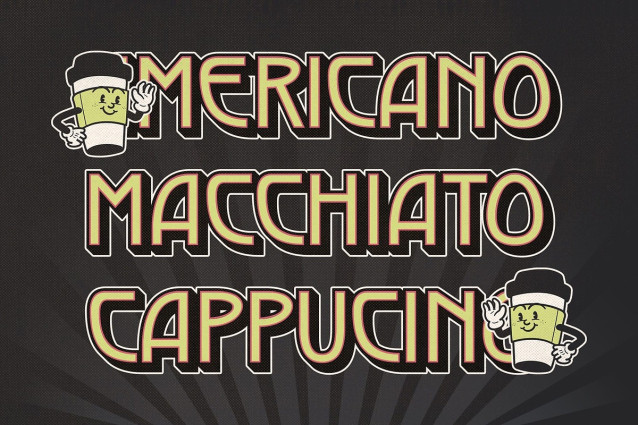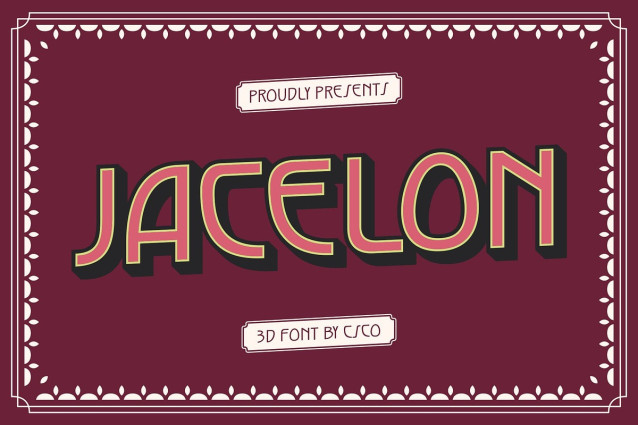
Jacelon 3D Font
Jacelon 3D is a modern sans-serif display font that masterfully blends the opulence of Art Deco with the simplicity of contemporary design. Its letterforms feature bold symmetry, straight lines, and elegant curves—core elements of Art Deco—refined through a minimalist sans-serif lens for a clean and timeless impression.
Striking 3D Effect for Visual Depth The 3D styling adds depth and sophistication, giving each character a sense of presence and visual intrigue. This dimensional detail enhances the font’s luxurious aesthetic, making it ideal for designs that seek to capture attention with elegance and boldness.
Sophisticated and Bold Form Designed with sharp precision and harmonious proportions, Jacelon 3D delivers a polished and upscale appearance. It communicates strength and luxury while maintaining modern versatility, allowing it to seamlessly adapt to a variety of visual contexts.
Perfect for High-End Visuals and Branding Whether used for premium branding, eye-catching posters, stylish packaging, or luxurious editorial layouts, Jacelon 3D offers the perfect blend of historical charm and futuristic appeal. It’s a font crafted to elevate any design that demands both beauty and bold sophistication.